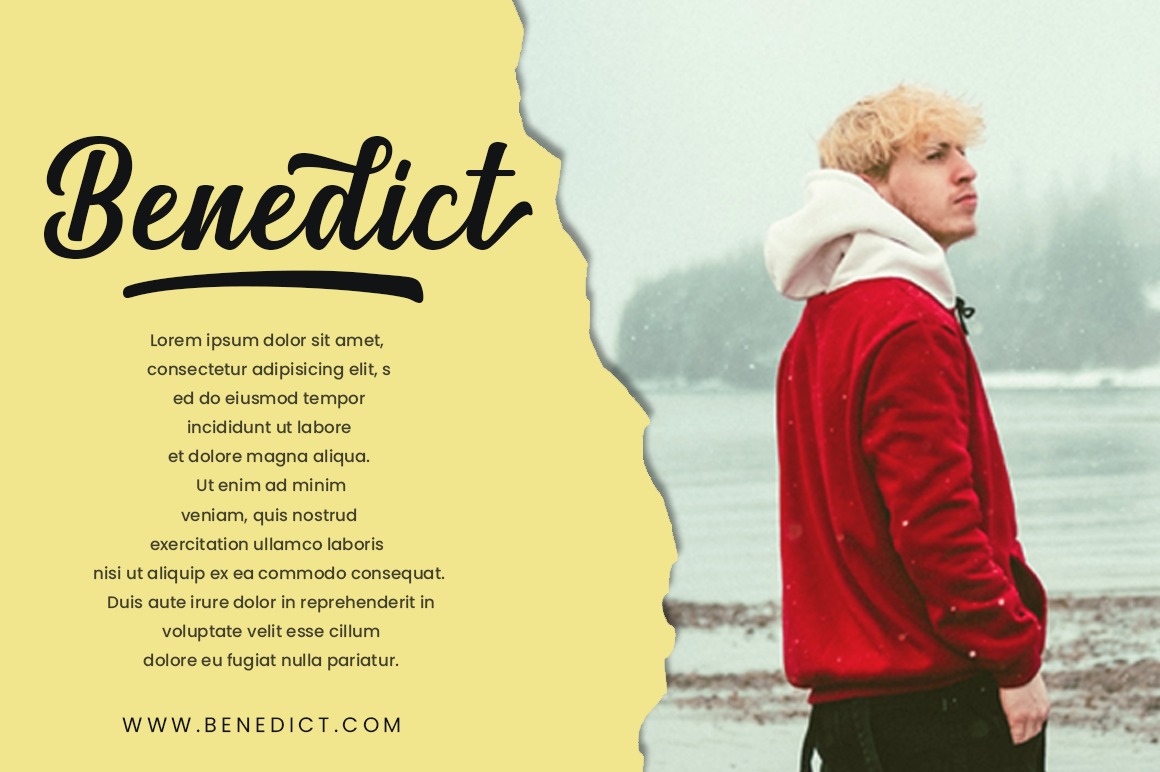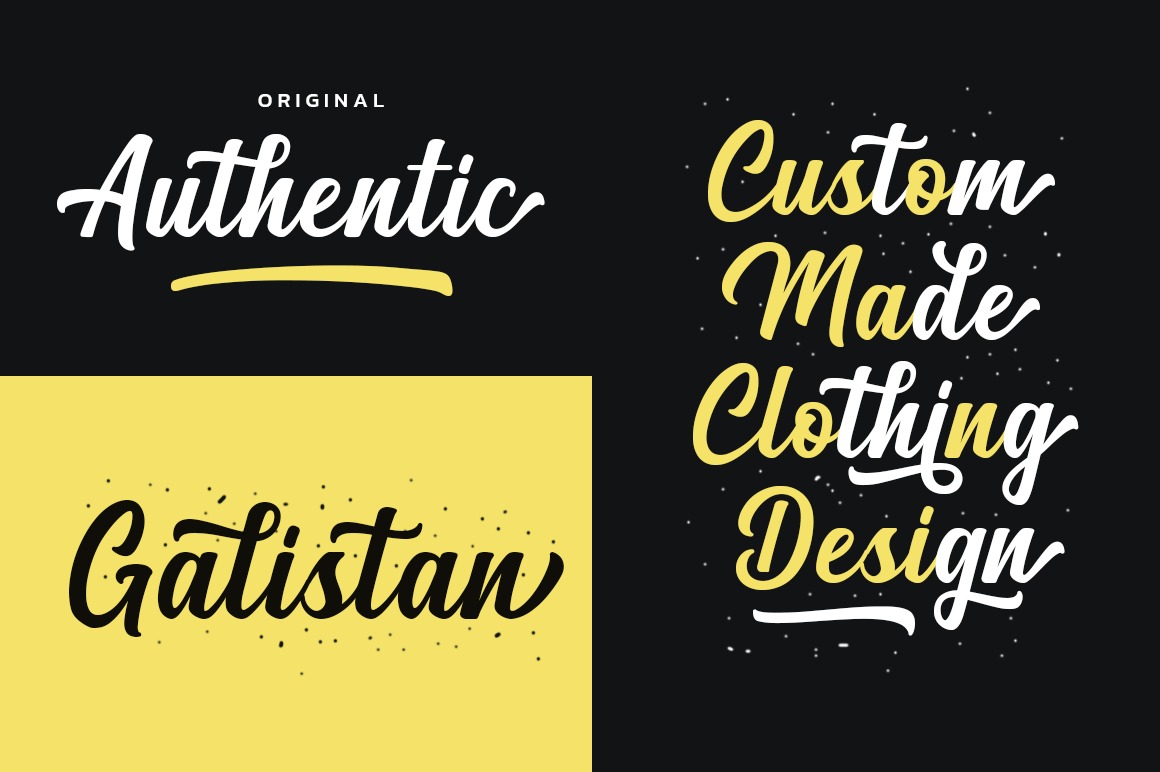
Magland Bold Script Font
This is a gorgeous and bold handwritten font, crafted to give your headlines and logotype projects a stylish touch. It is defined by smooth curves and is perfect for fashion branding or editorial designs. Magland is PUA encoded which means you can access all of the glyphs and swashes with ease!